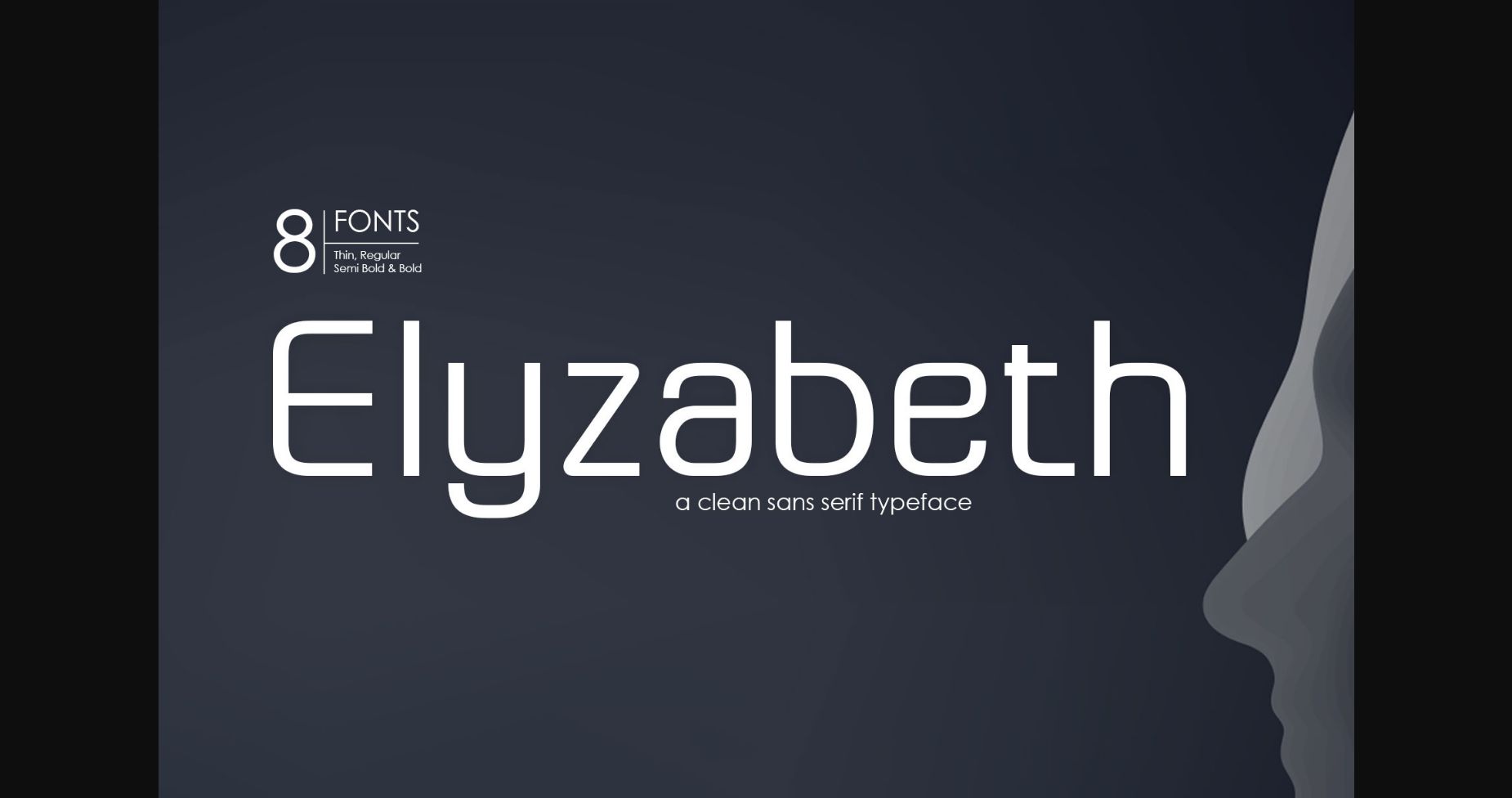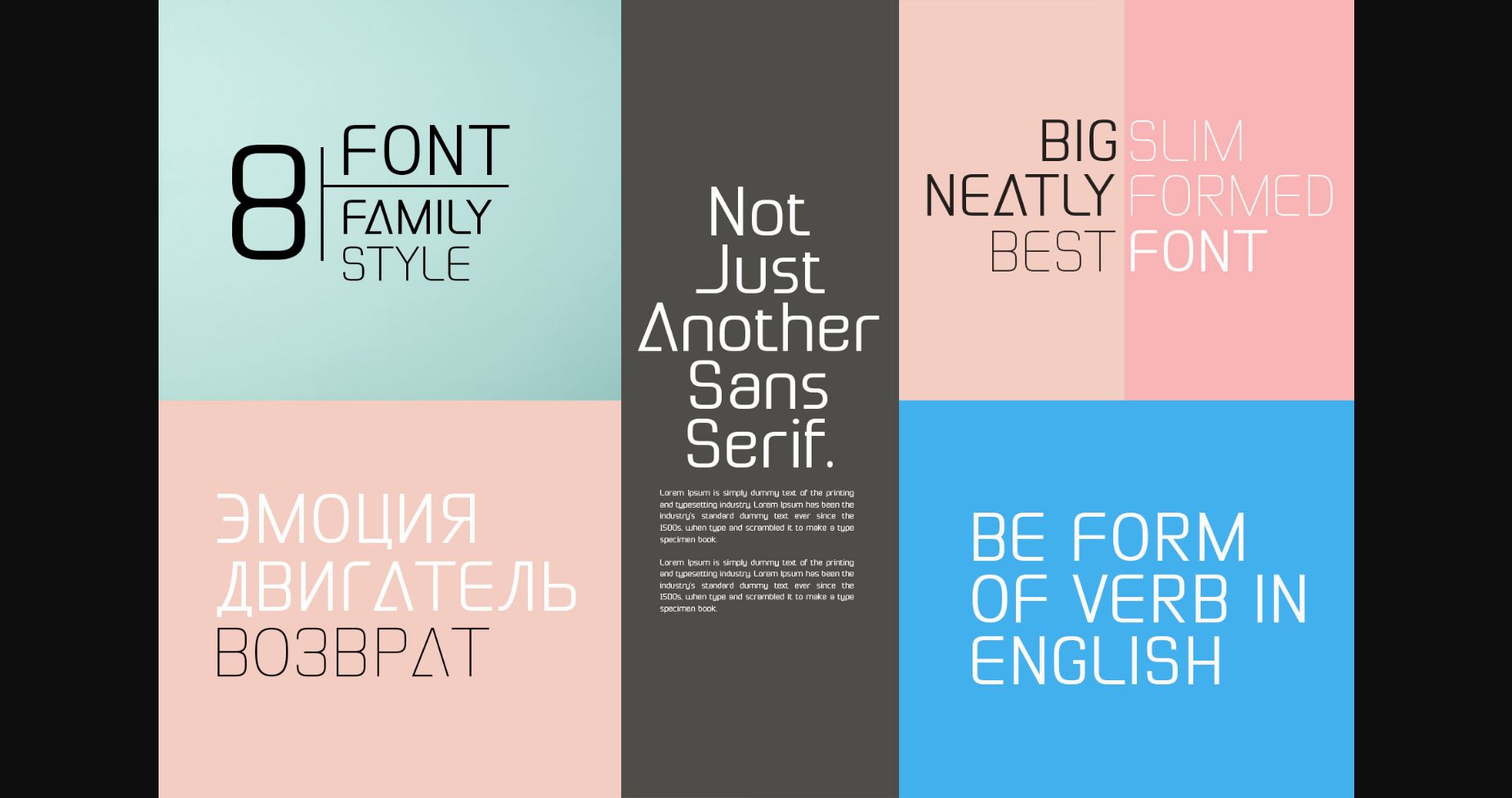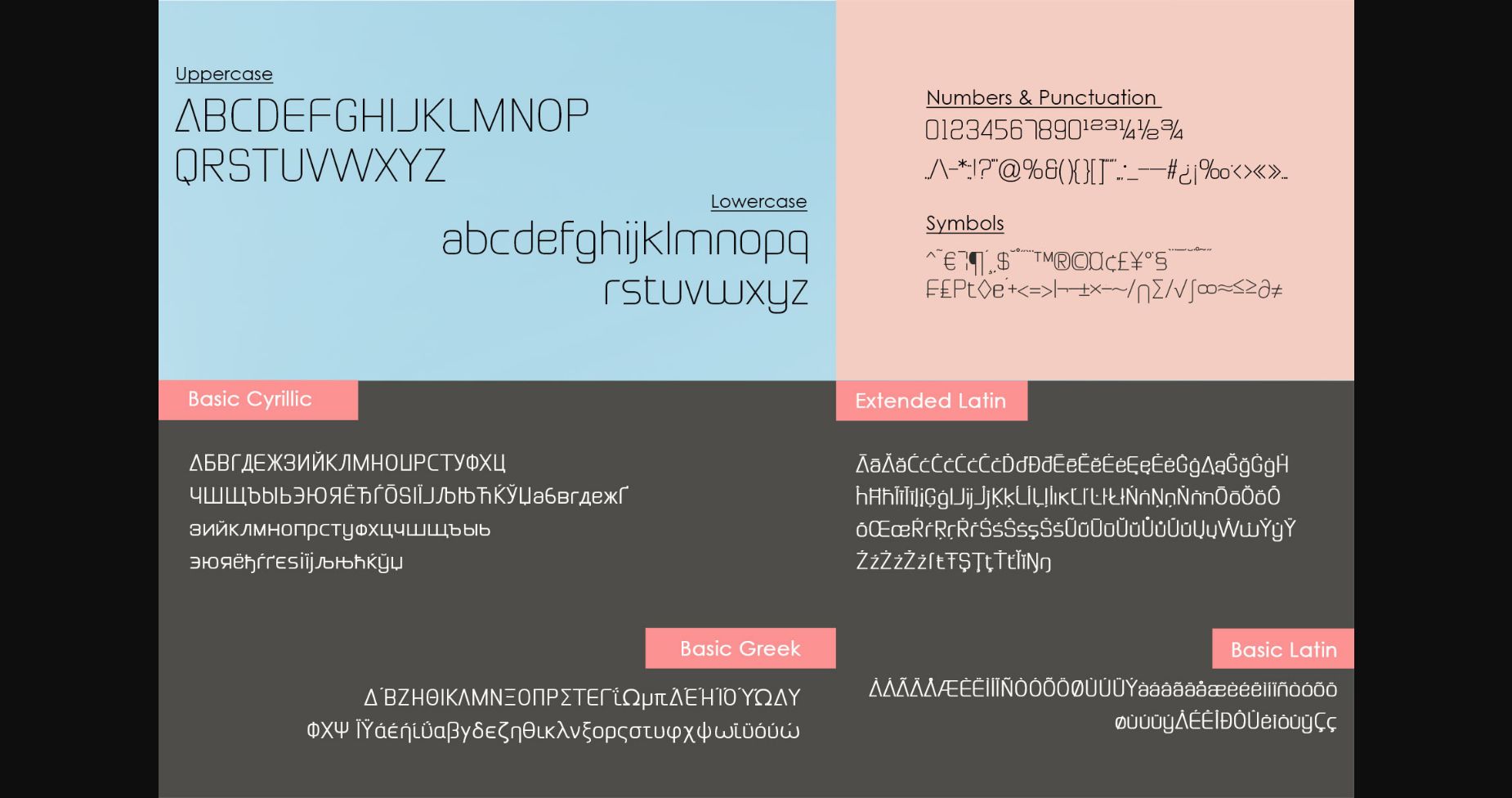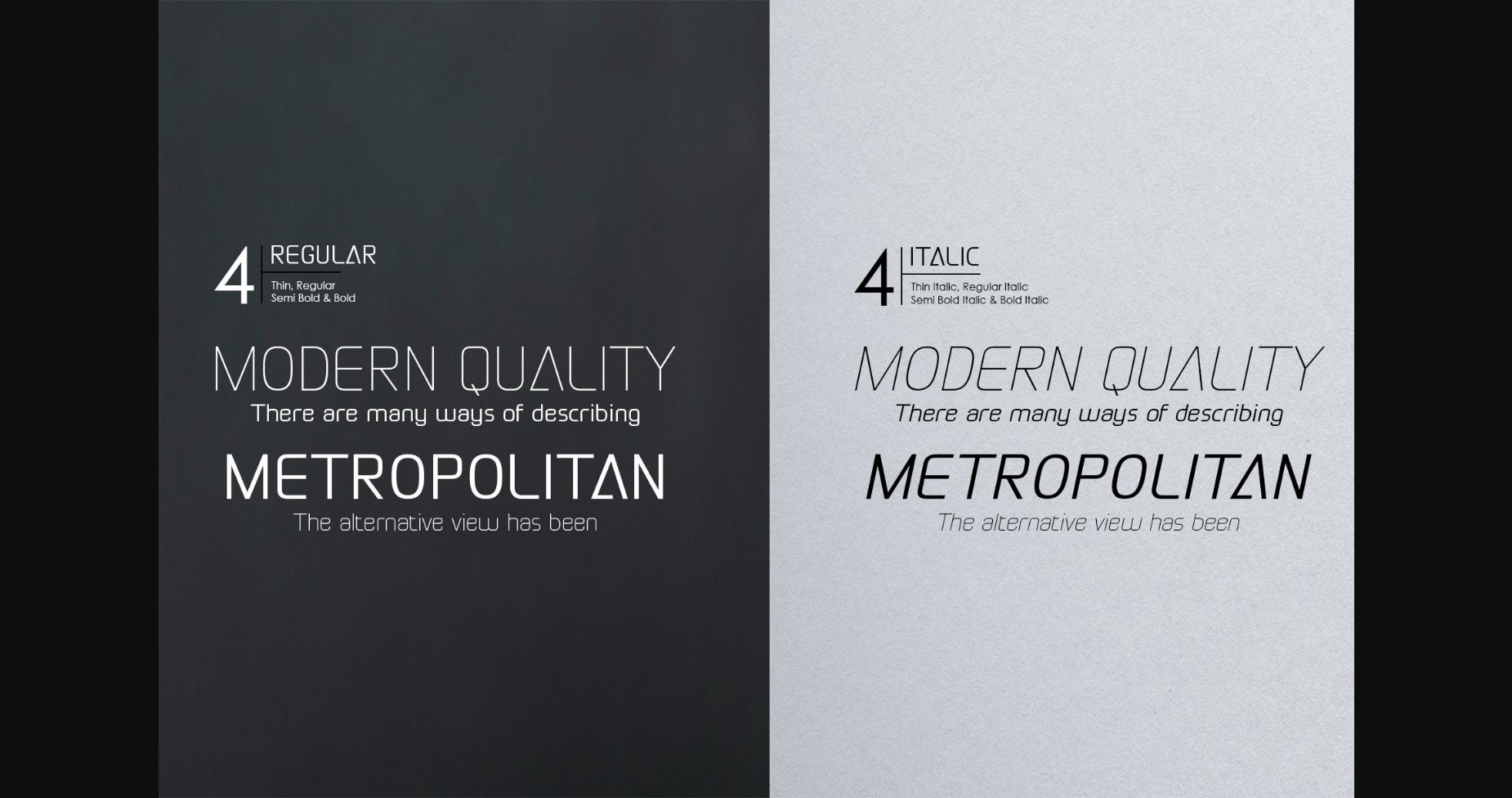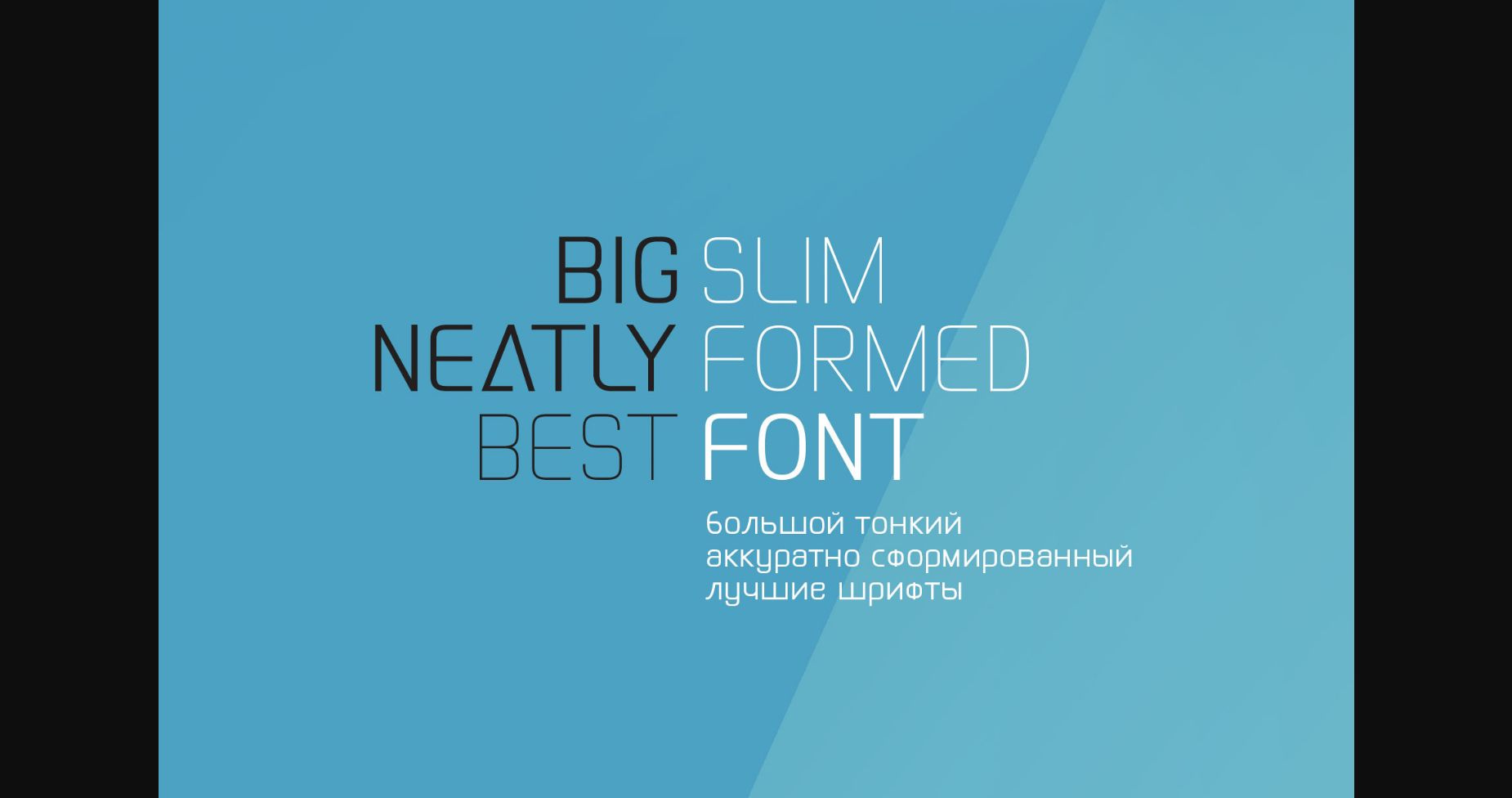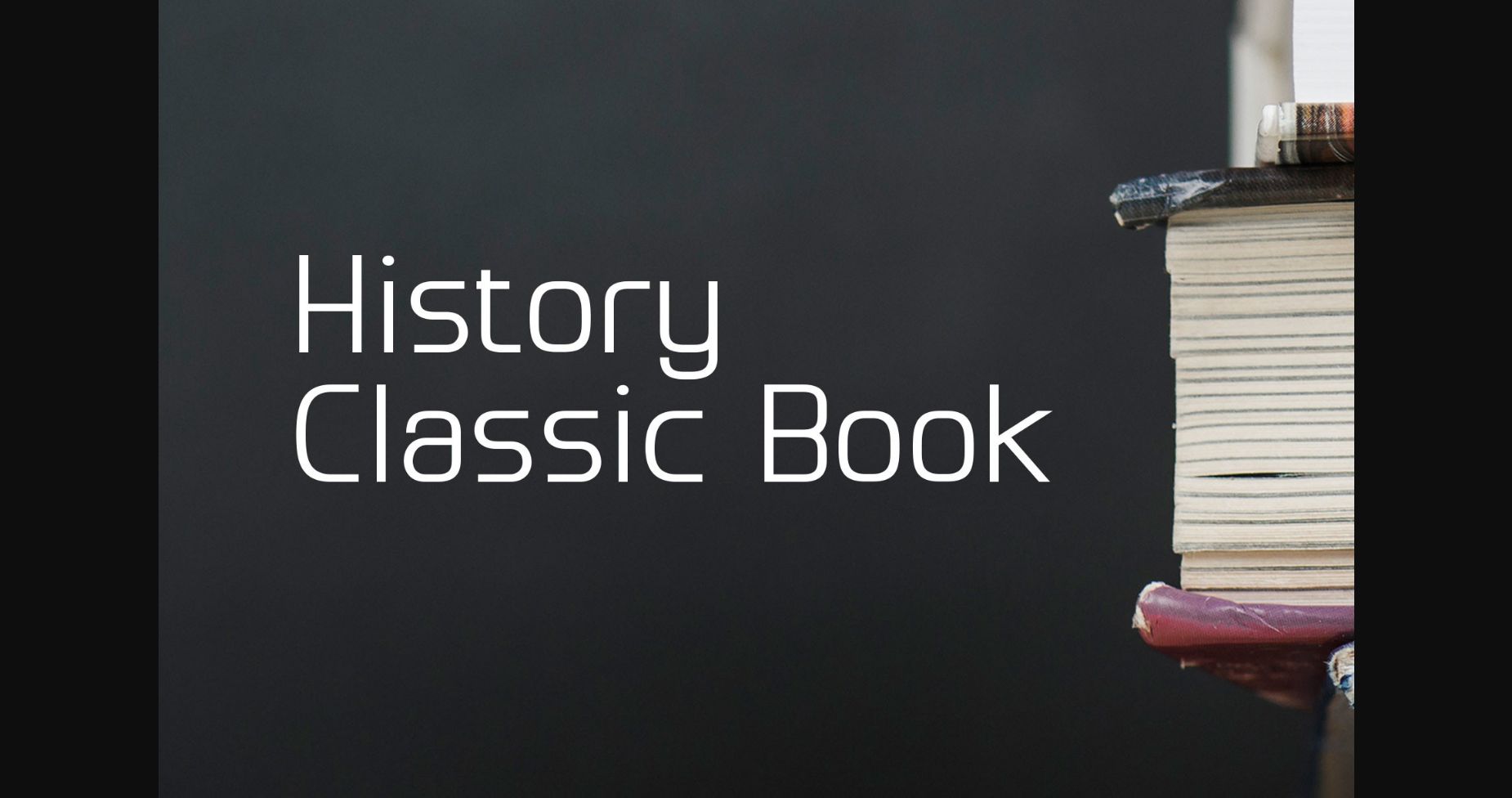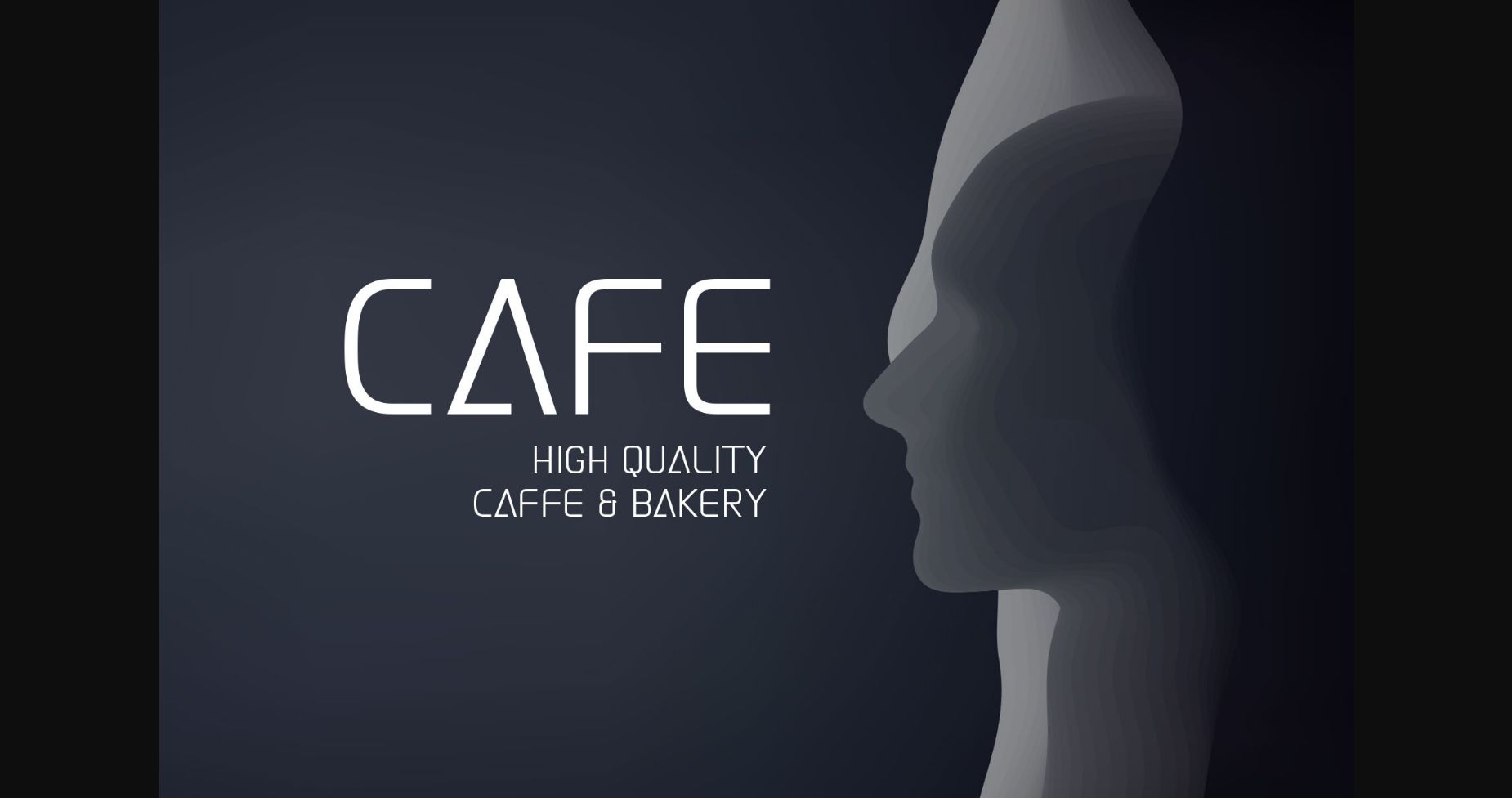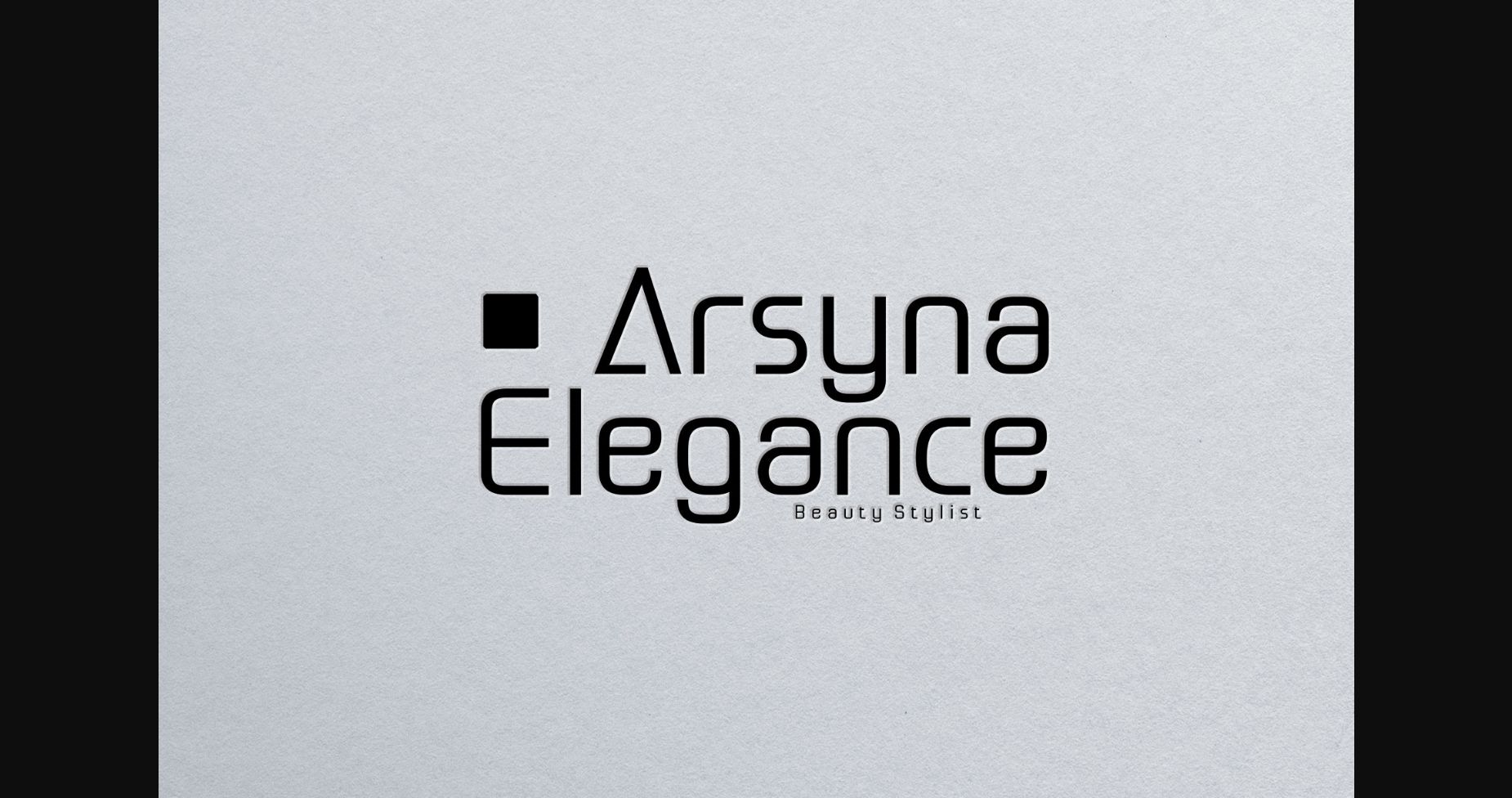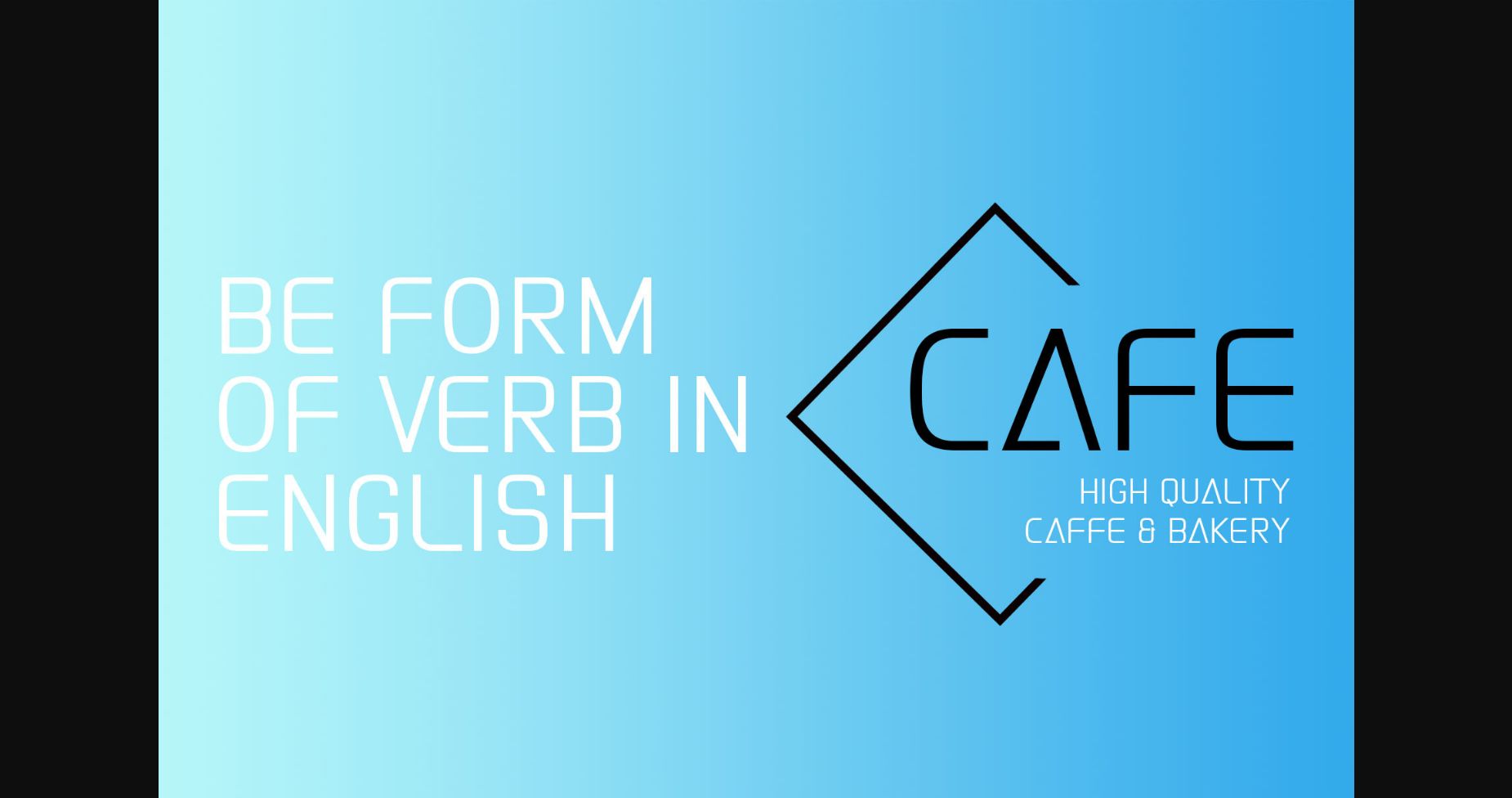
Elyzabeth Font
About Elyzabeth Font
Elyzabeth is a clean and simple sans-serif font that offers clarity and readability. Its minimal and timeless design with straight lines and uniform strokes makes it perfect for a wide range of designs, from websites to print materials. Elyzabeth adds a touch of modernity and professionalism to any project.